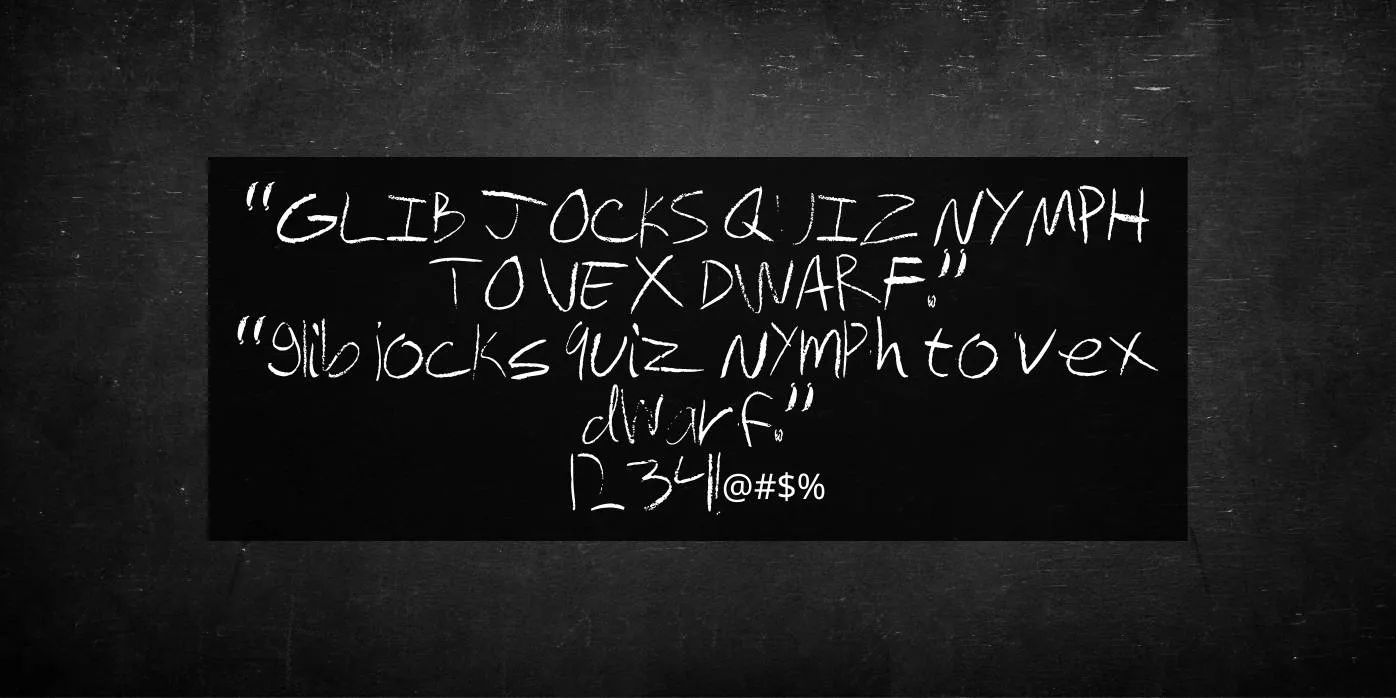
Chalkboard Font
Today, we introduce a stylish typeface known as Chalkboard Font. This family was designed by Adena Arviso. It belongs to the brush font family.  It includes upper and lowercase letters, numbers, and punctuation marks. The Chalkboard Typeface family consists of four different fonts.
They are regular, rough, smudge, and sketched. Each font has its own unique distressed look. The regular font is the most basic of the four fonts. It includes upper and lowercase letters, numbers, and punctuation marks.
The smudge font is also similar to the regular font but with even more distress marks. Lastly, the sketch font is the most distressed of the four fonts. Its text generator tool is suitable for many designs.